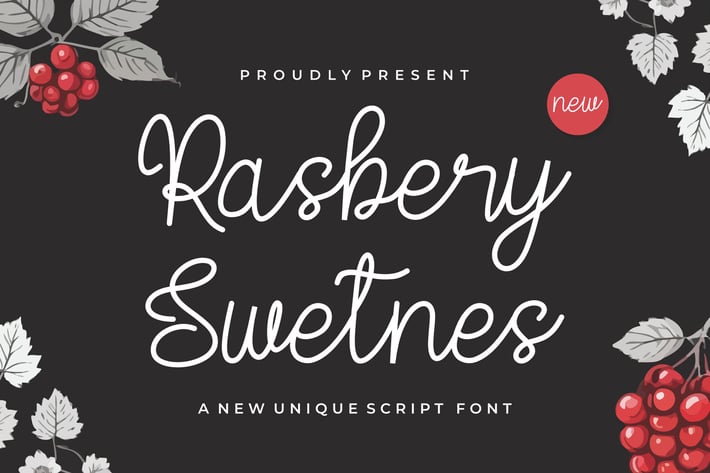
Rasbery Swetnes || Unique Script Font
Hello everyone, I would like to introduce Rasbery Swetnes a handwritten font with a casual and elegant style.
Rasbery Swetnes can also be used for a variety of projects such as branding, labels, photography, invitations, stationery, wedding designs, social media posts, advertising, product packaging, product design and other awesome projects.